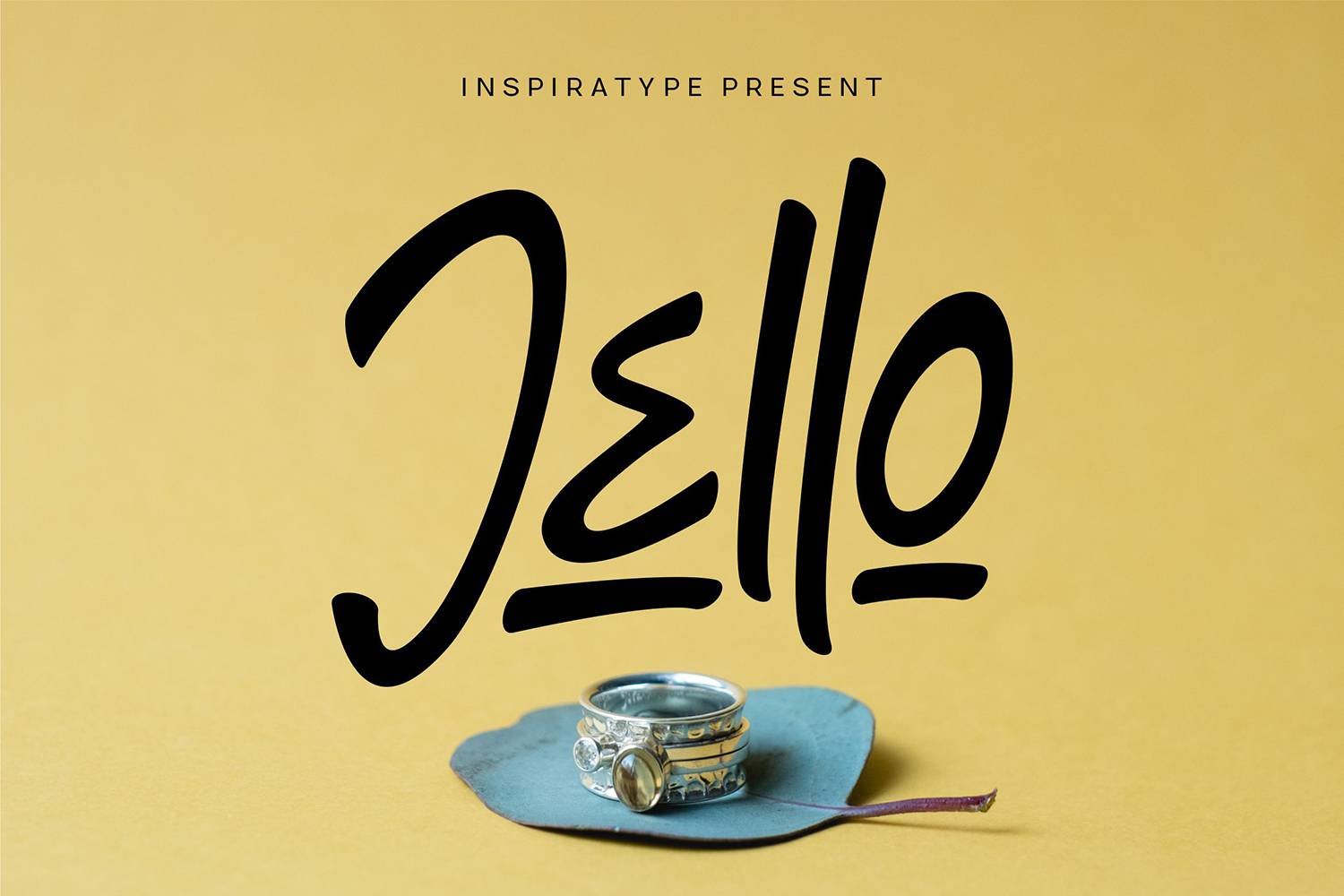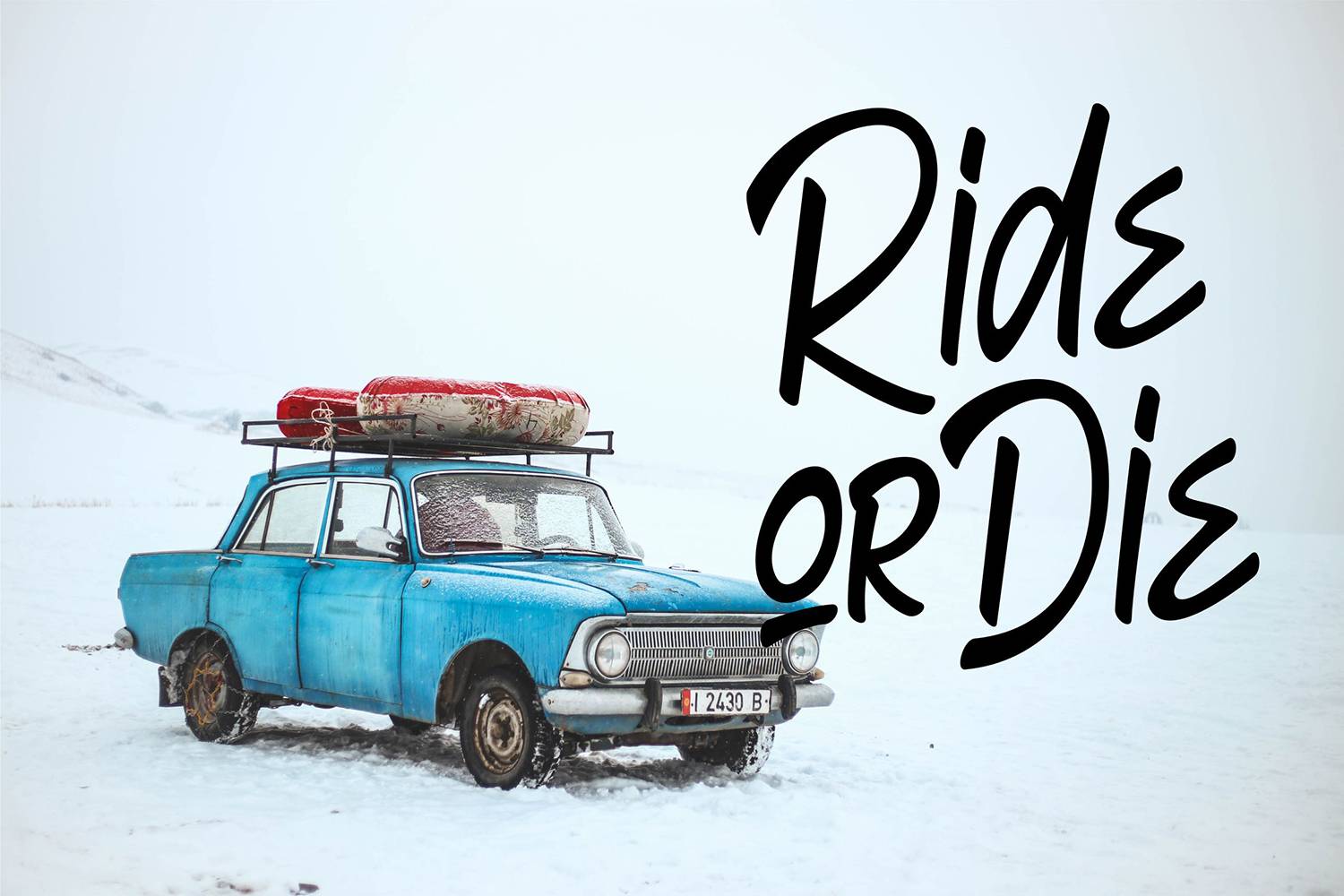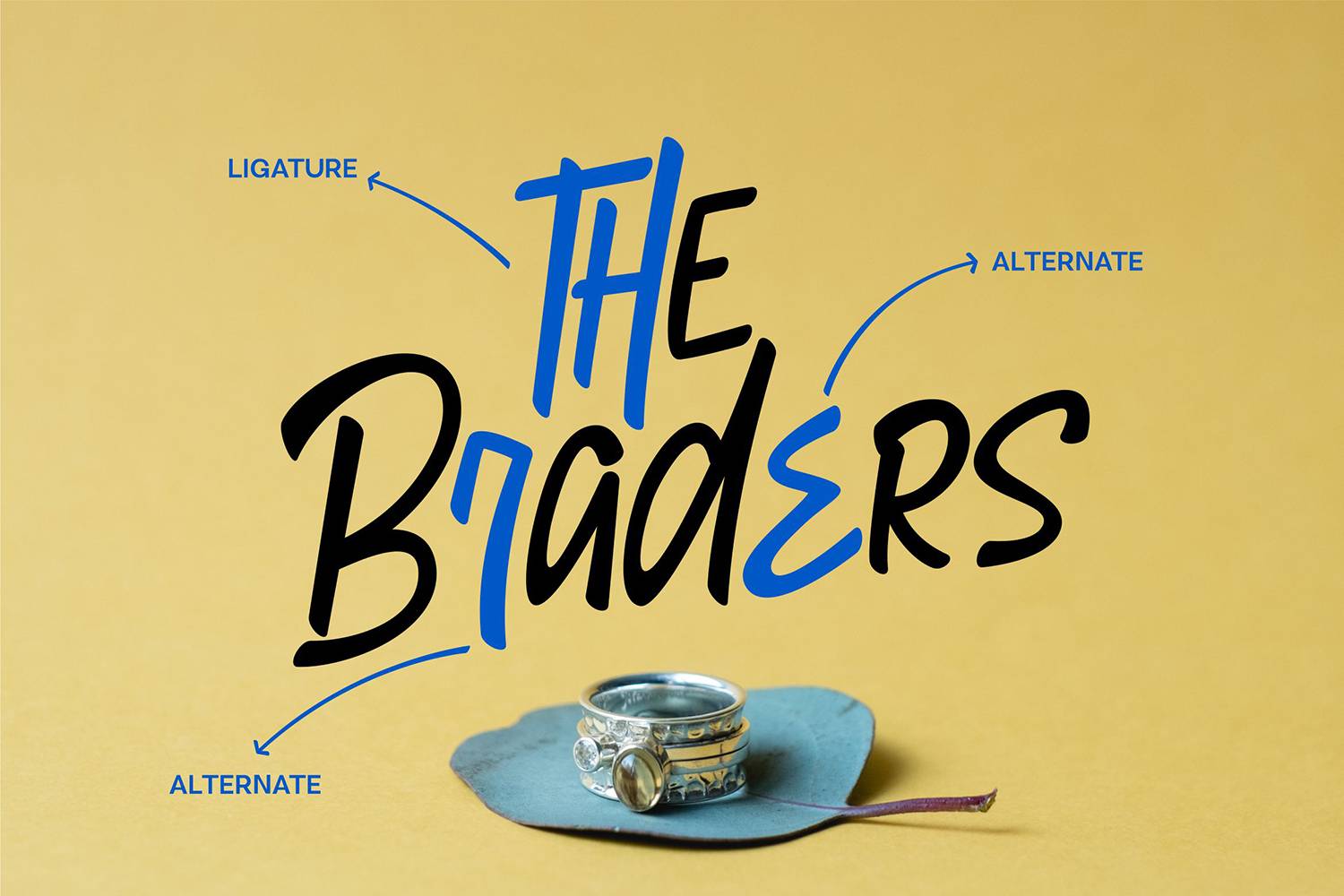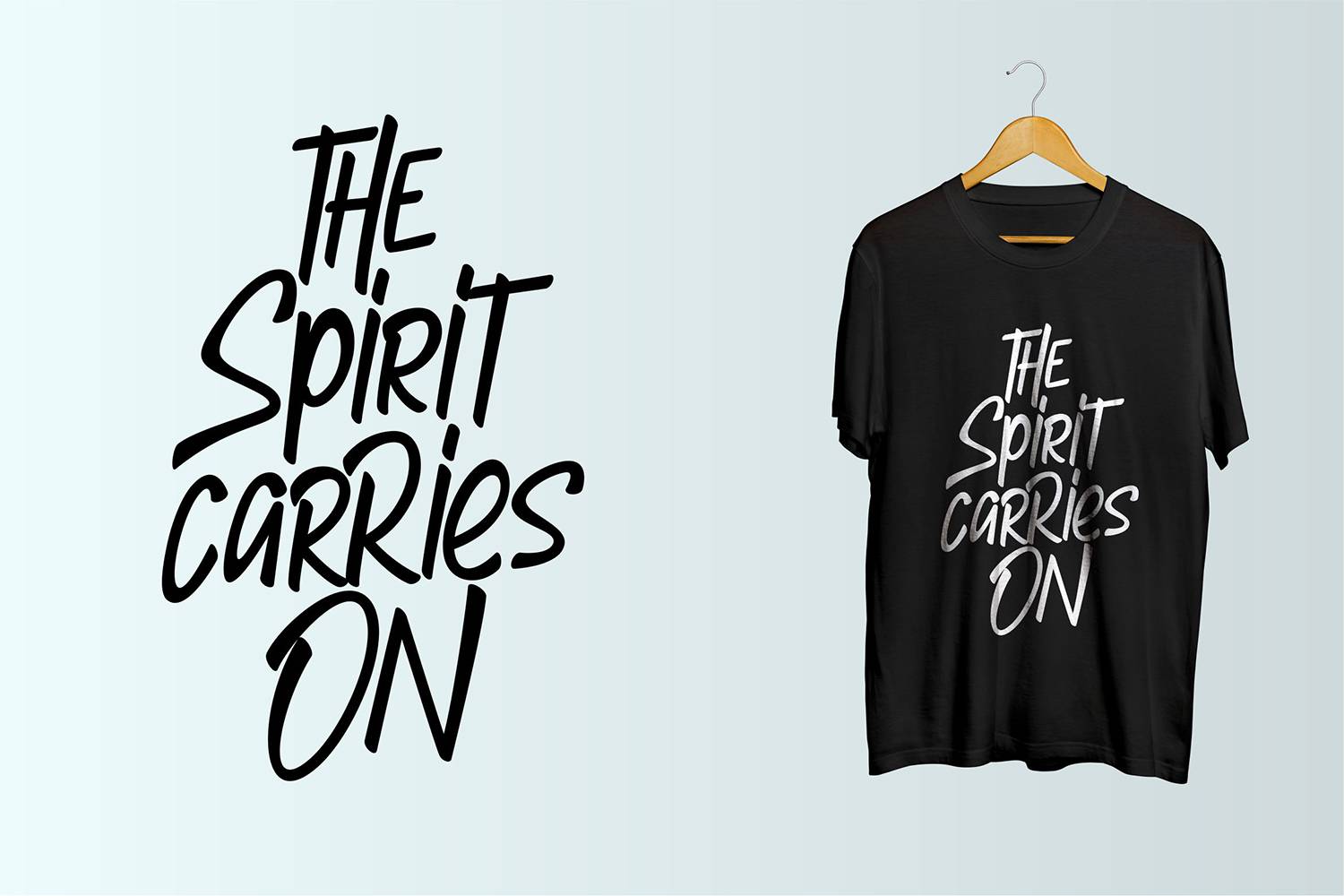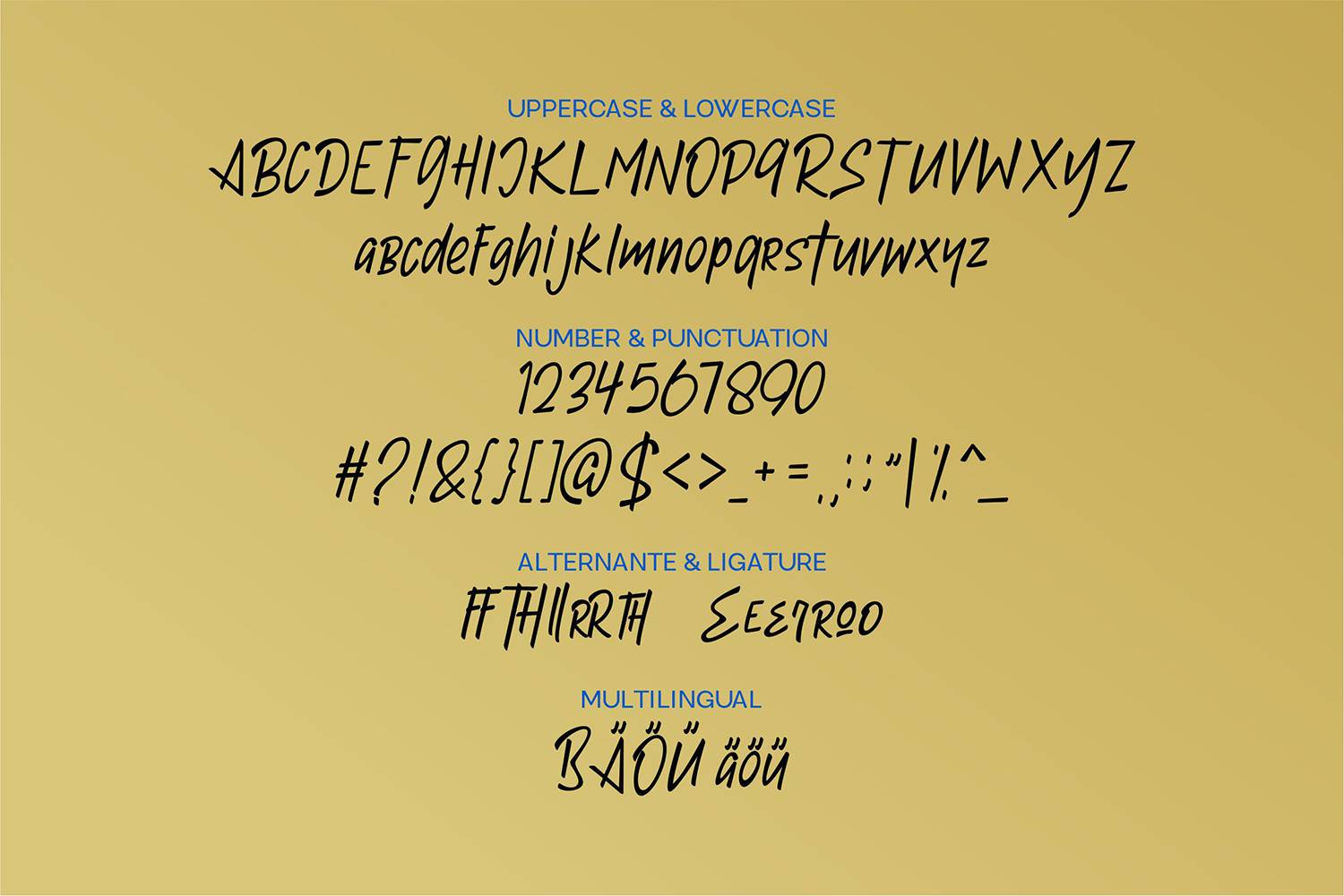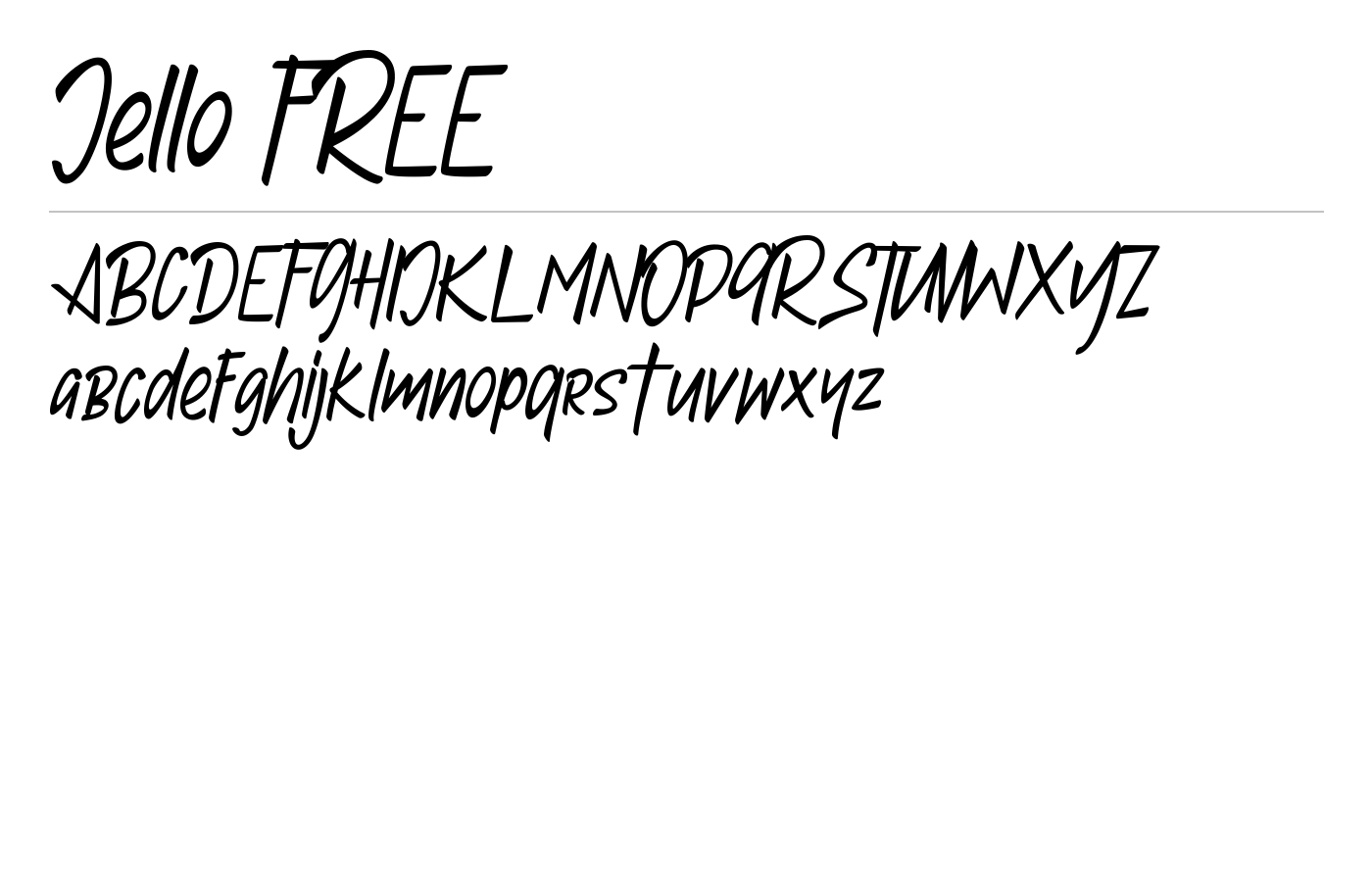
Jello Font is a lively and casual handwritten script with a slightly condensed, airy feel and fluid strokes that mimic natural penmanship. Its light weight and playful character make it ideal for creative branding, informal headlines, and personal or artistic projects where a friendly, approachable vibe is desired. This font works best in designs that want to convey warmth and personality without sacrificing readability.
Jello Font
About Jello Font
| Font family | Jello Font |
| Designer | Inspiratype |